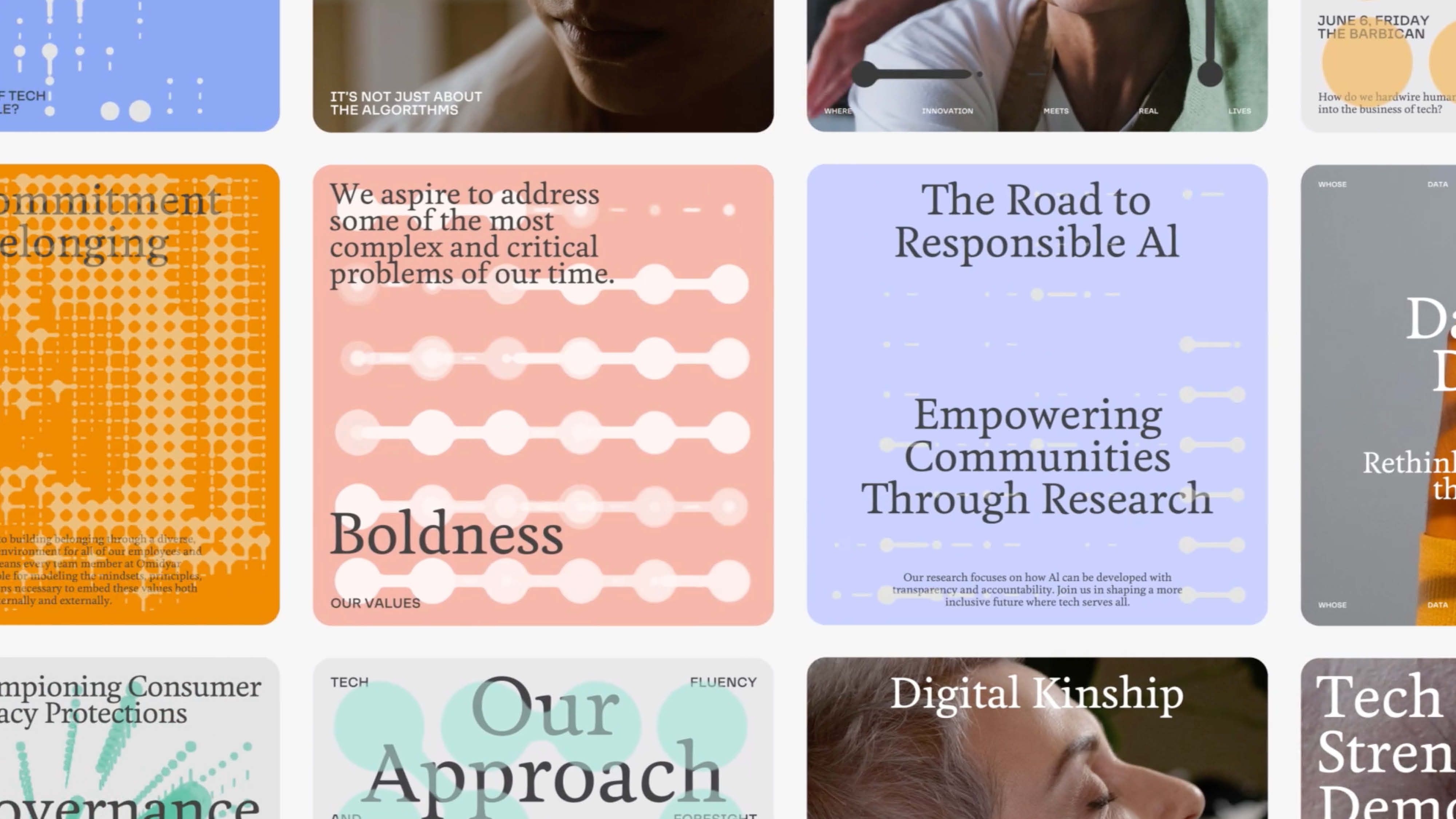
F37 Lineca®
In a spirit of experimentation and creating something totally unique, we introduced a straight, horizontal line into every single letterform. Even the (traditionally) round ones.
Remember one line cannot exist alone; it always brings a companion along.
Piet Mondrian born March 7, 1872, Netherlands.
I believe it is possible that, through horizontal and vertical lines constructed with awareness, but not with calculation, led by high intuition, and brought to harmony and rhythm, these basic forms of beauty, supplemented if necessary by other direct lines or curves, can become a work of art, as strong as it is true.